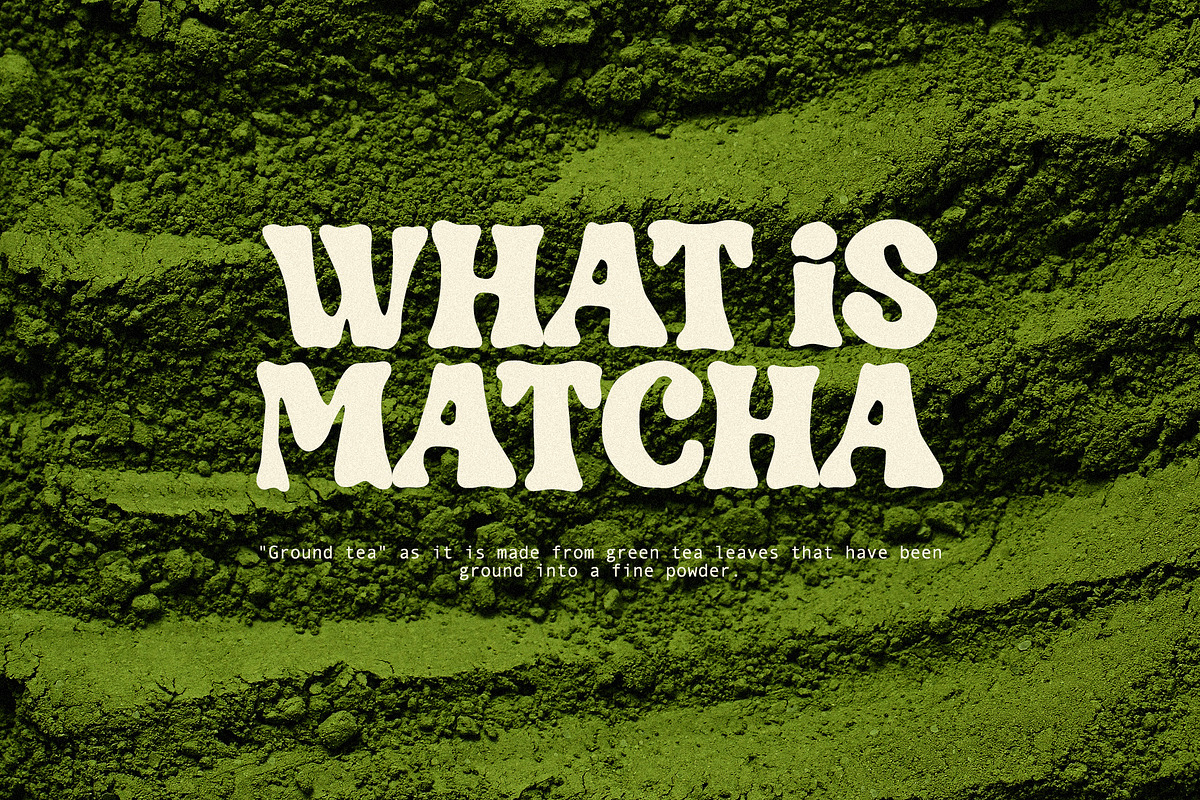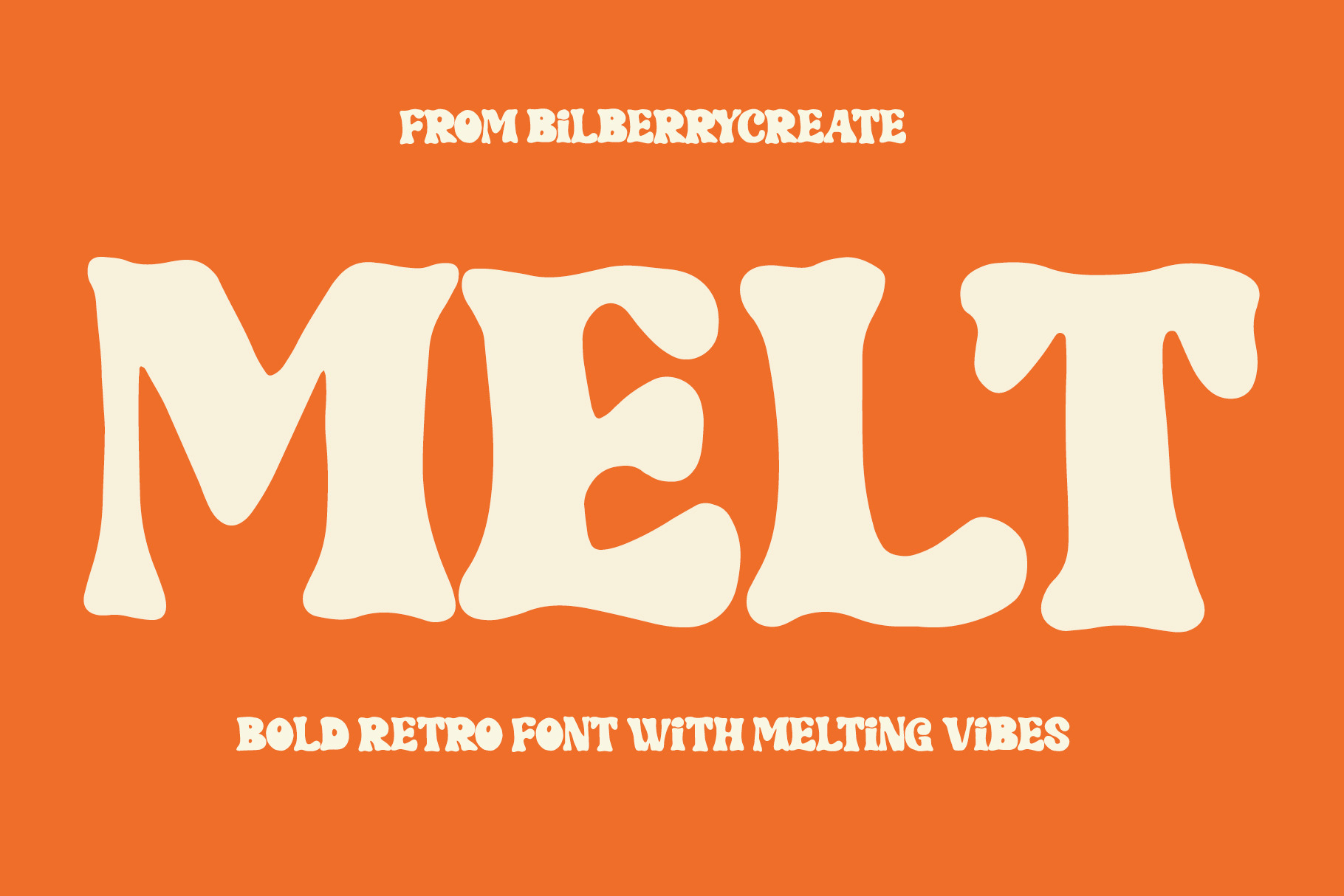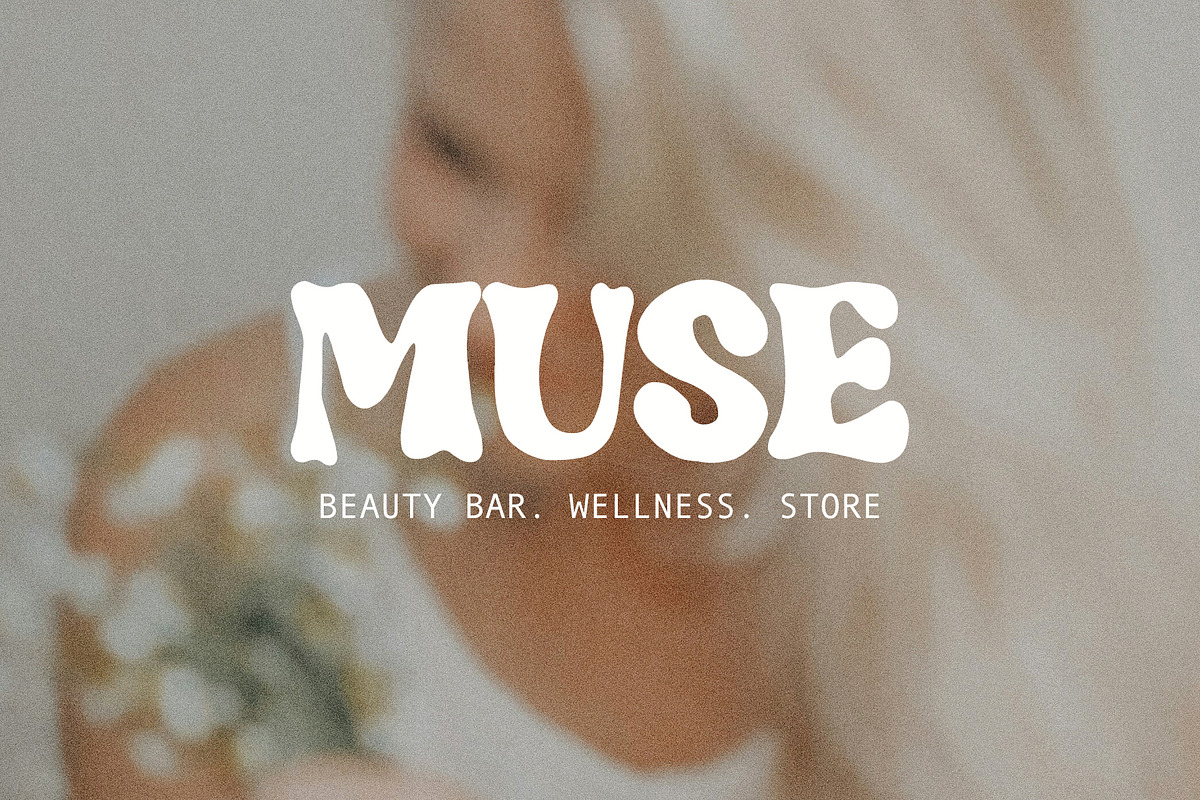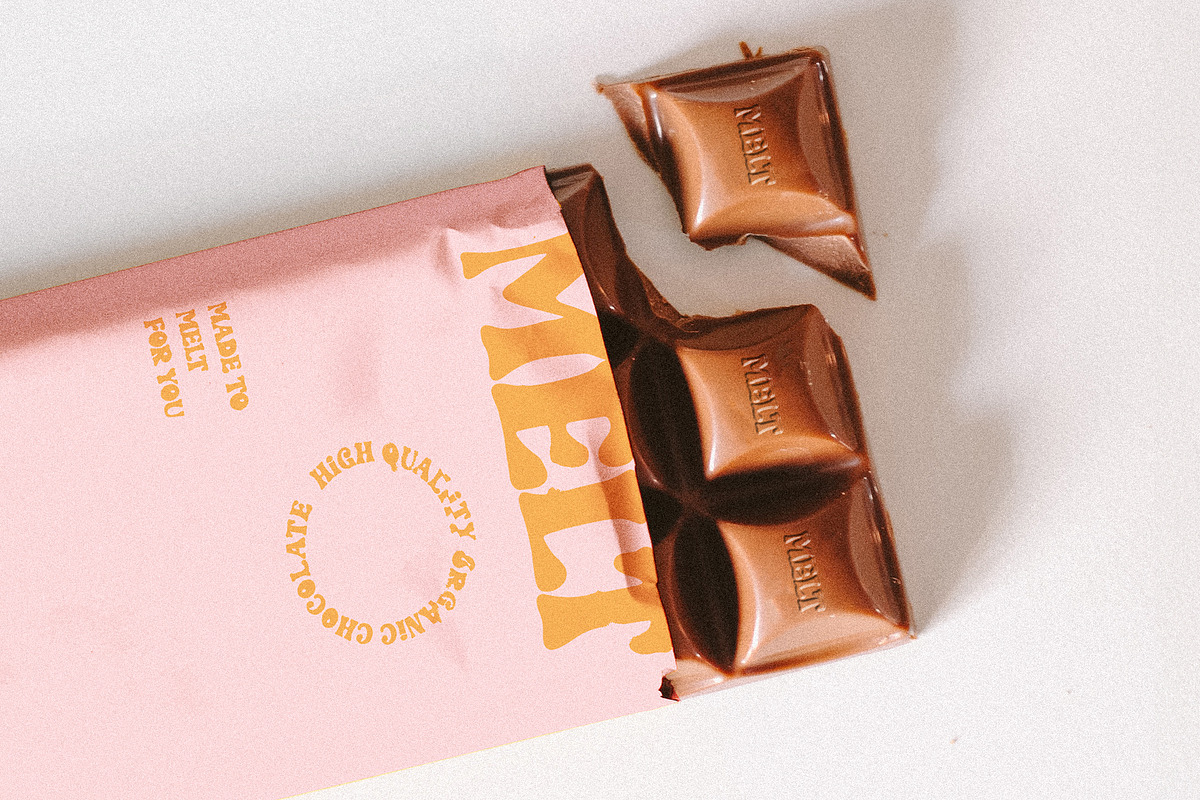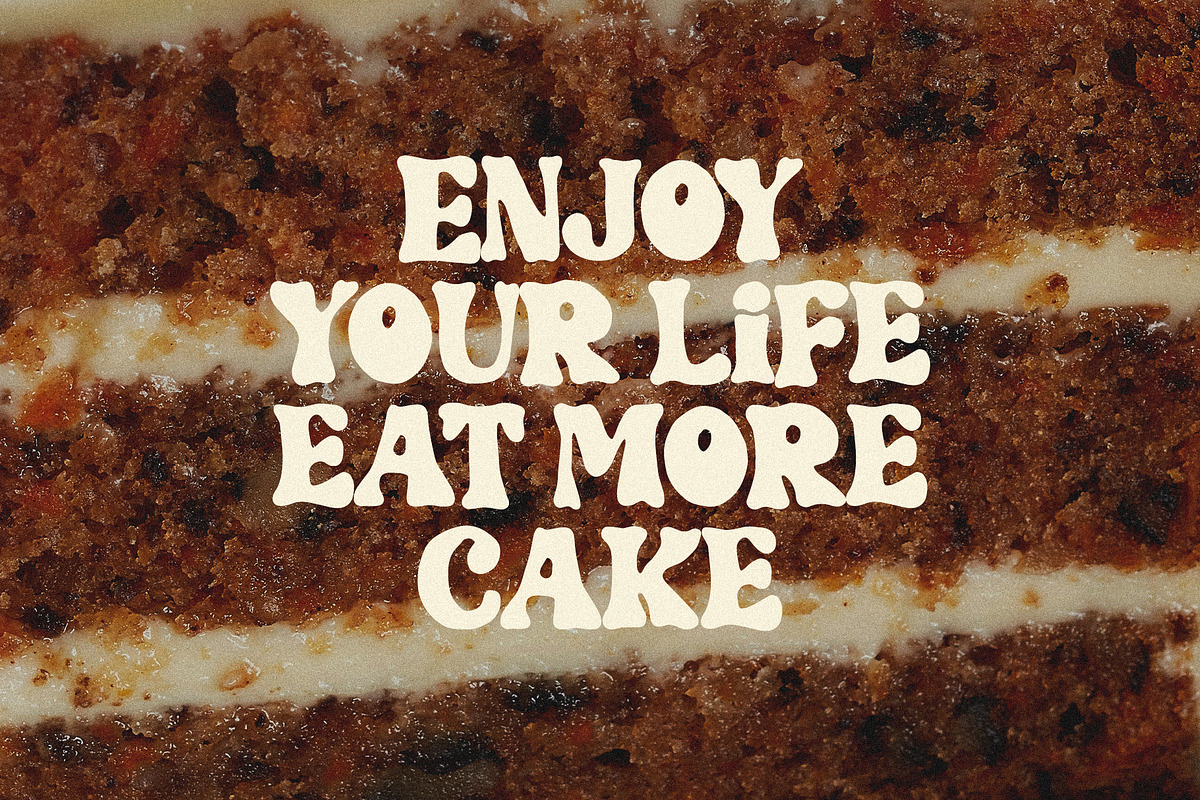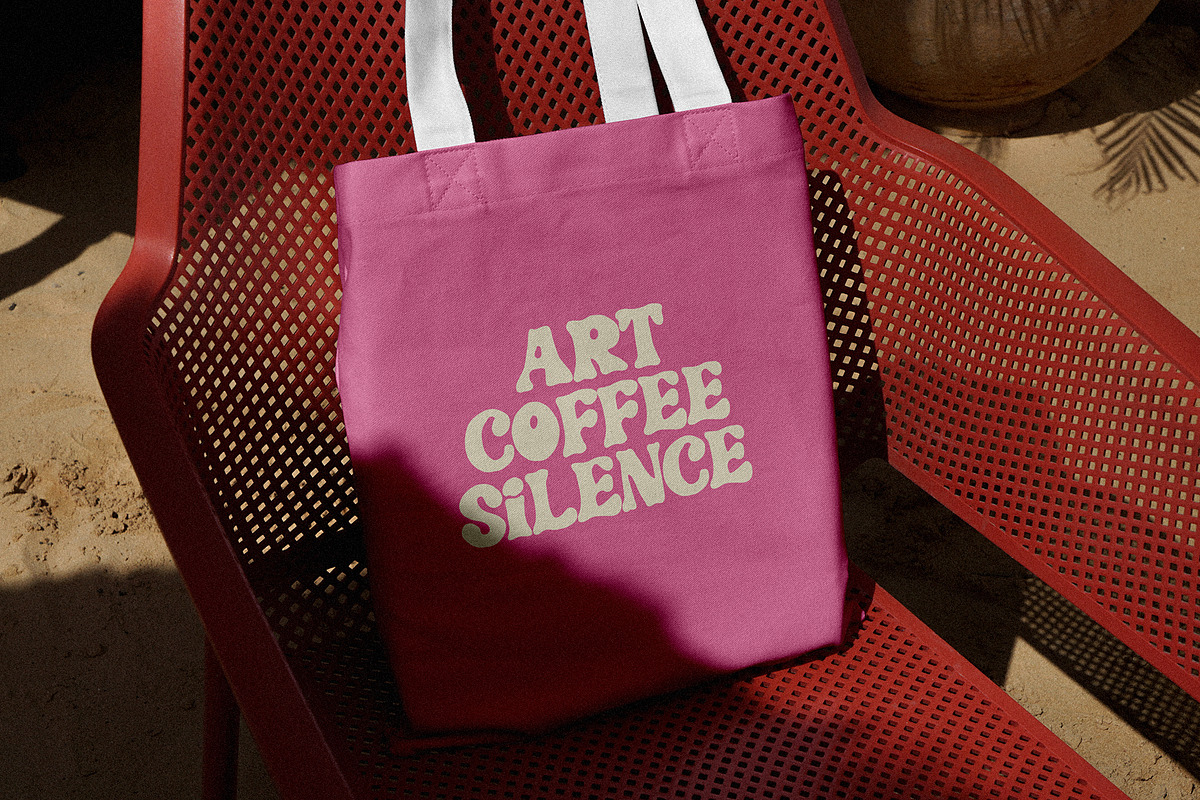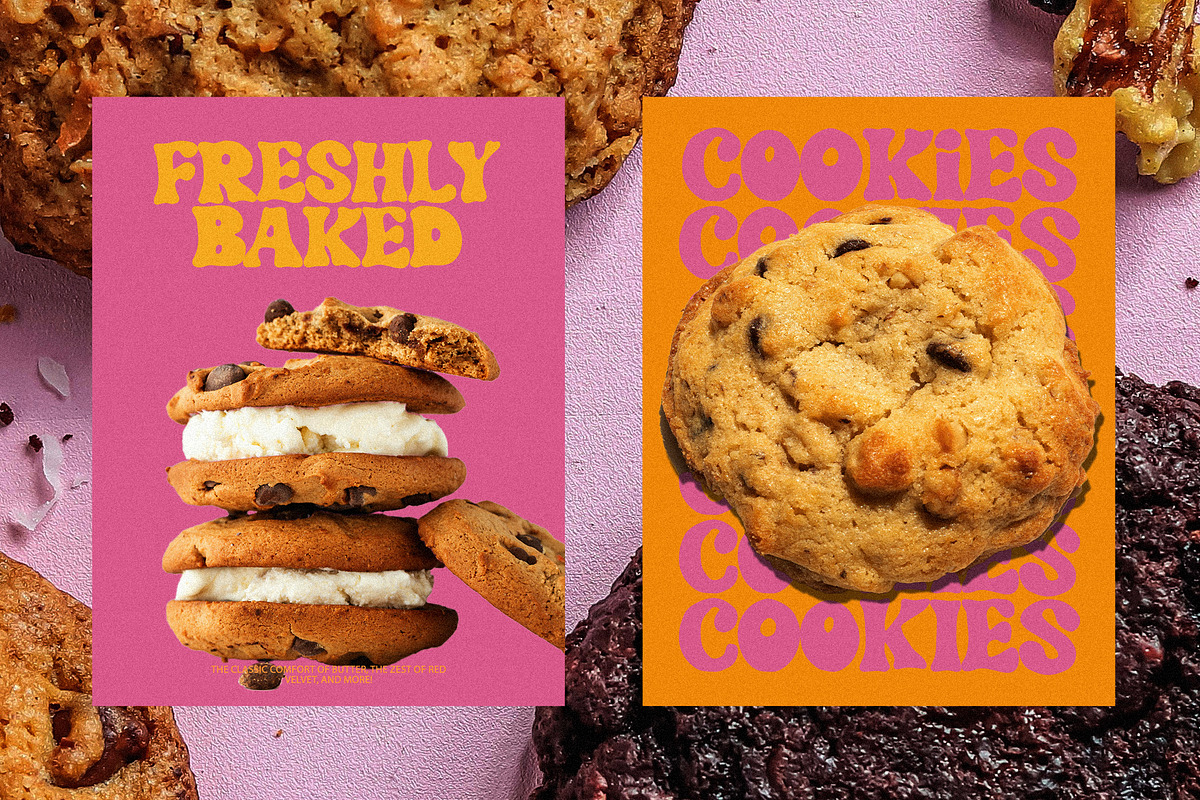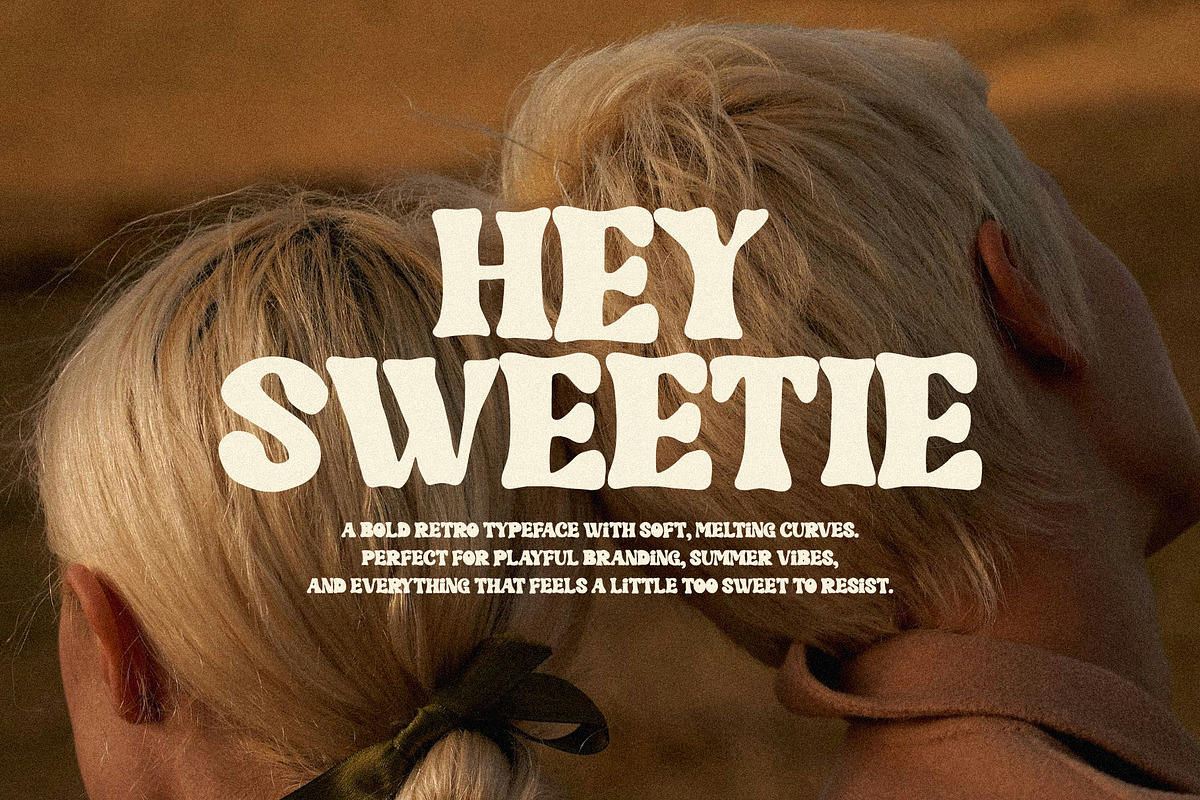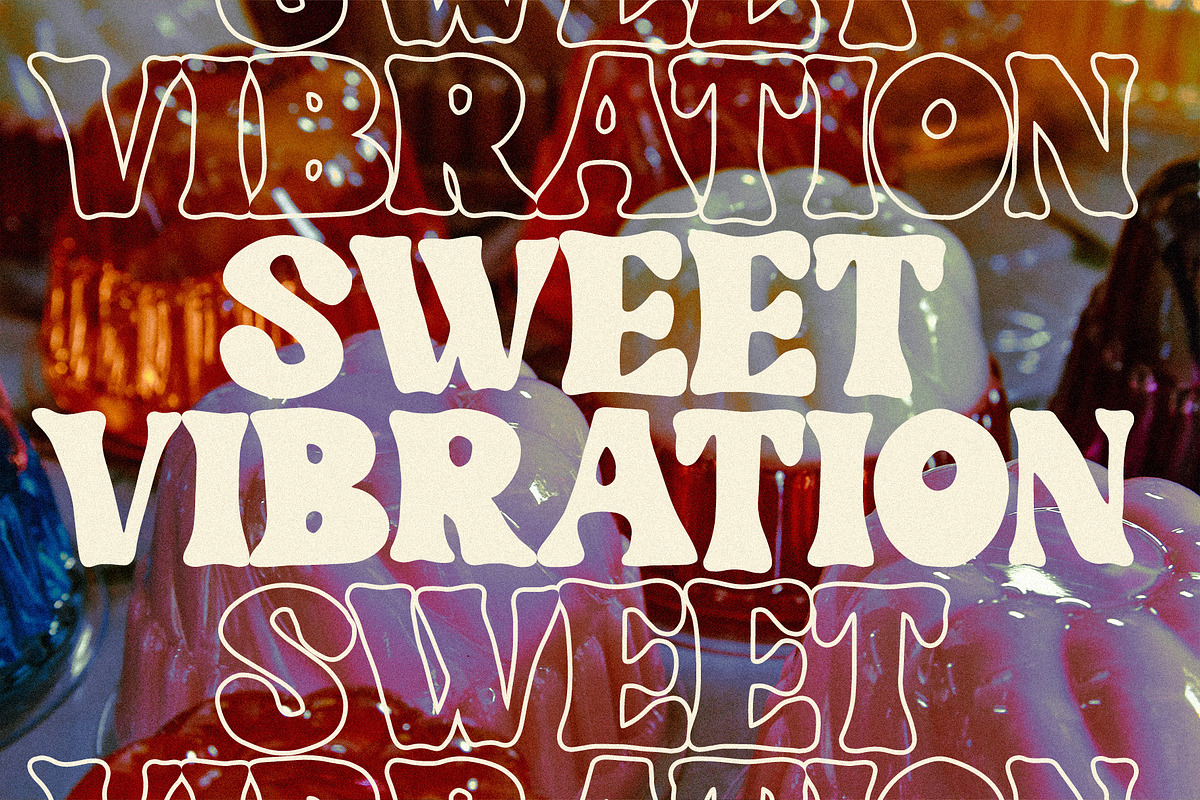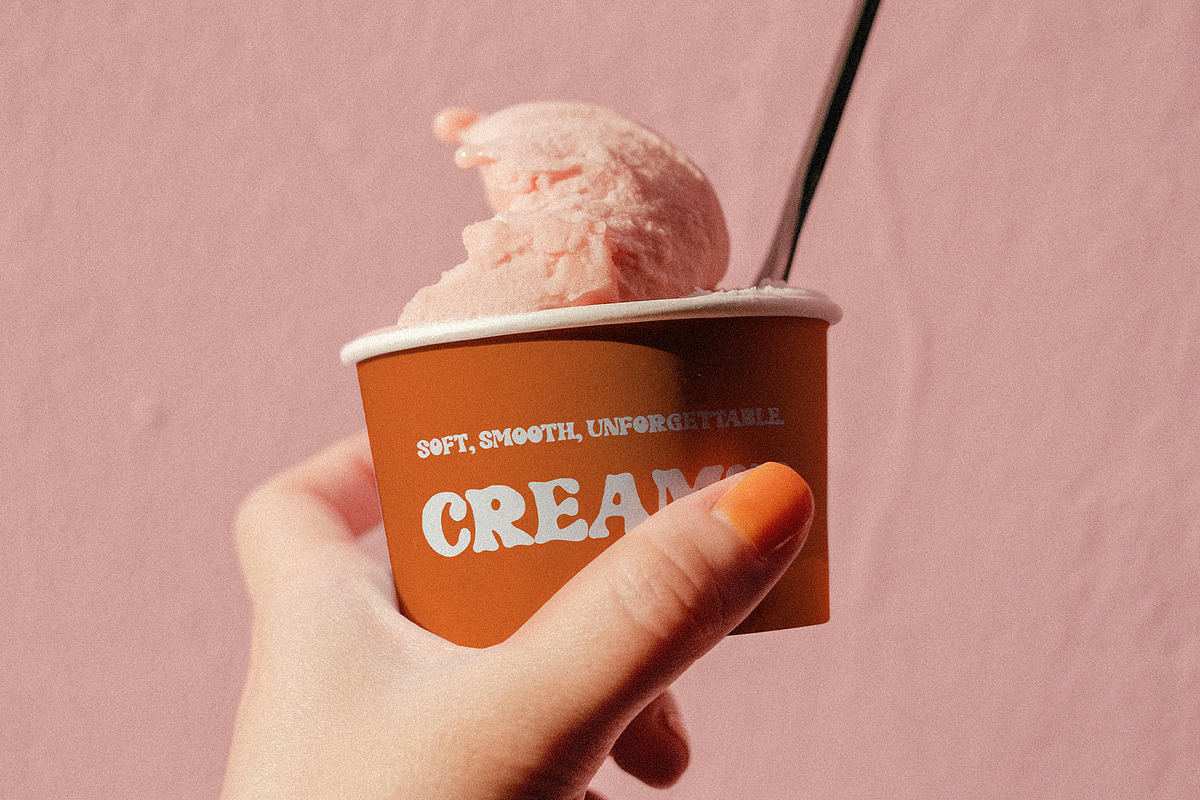
Melt bold retro font
MELT - Bold Retro Font with Melting Vibes 🍦
Meet MELT, a playful retro typeface inspired by warm summer days, ice cream drips, and 70’s groove. Its soft, wavy shapes and bold character make it perfect for branding, posters, packaging, and anything that needs a splash of nostalgia with a fun twist.
- Retro & vintage branding
- Groovy posters and album covers
- Ice cream shops, cafés, and lifestyle packaging
- Playful social media graphics